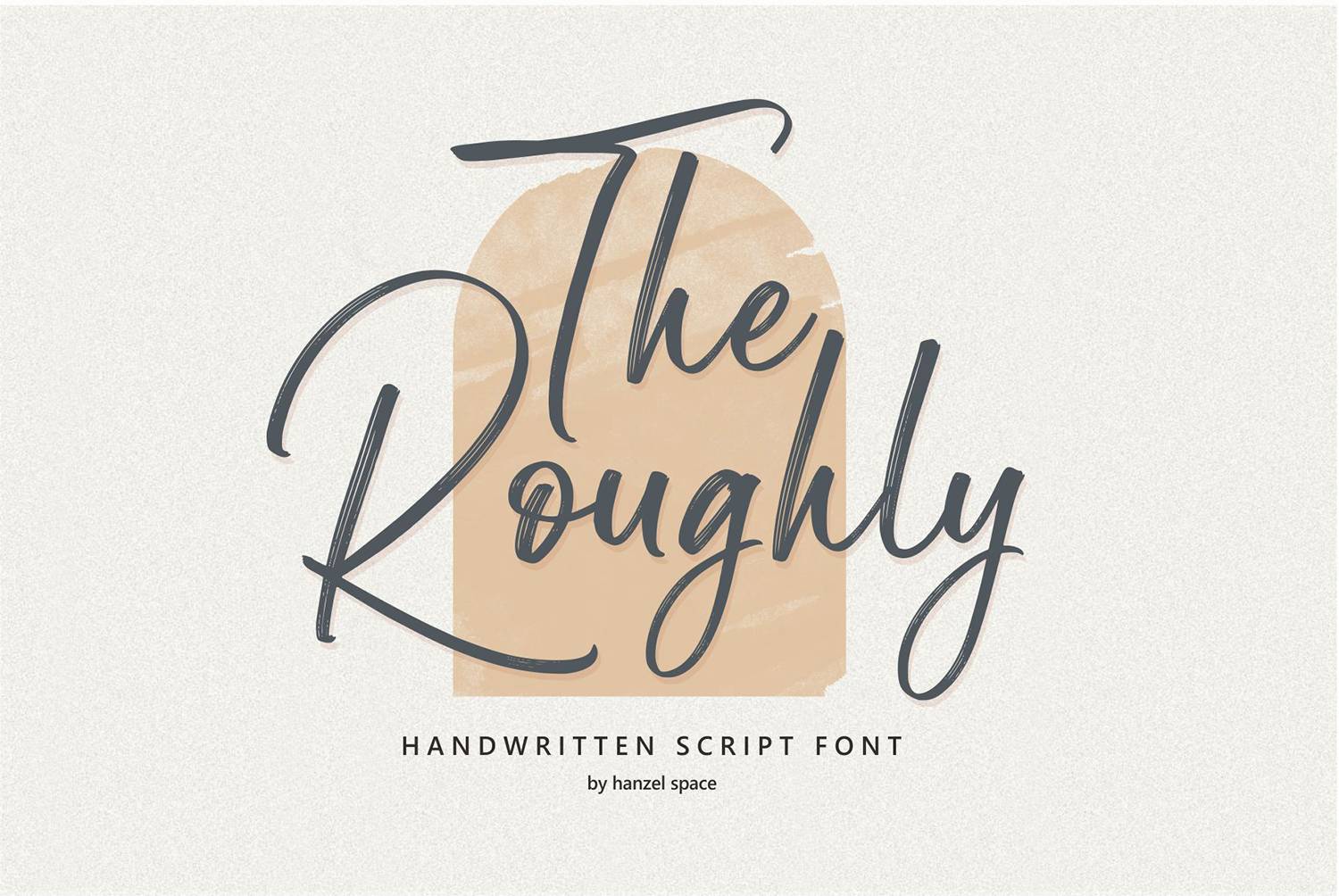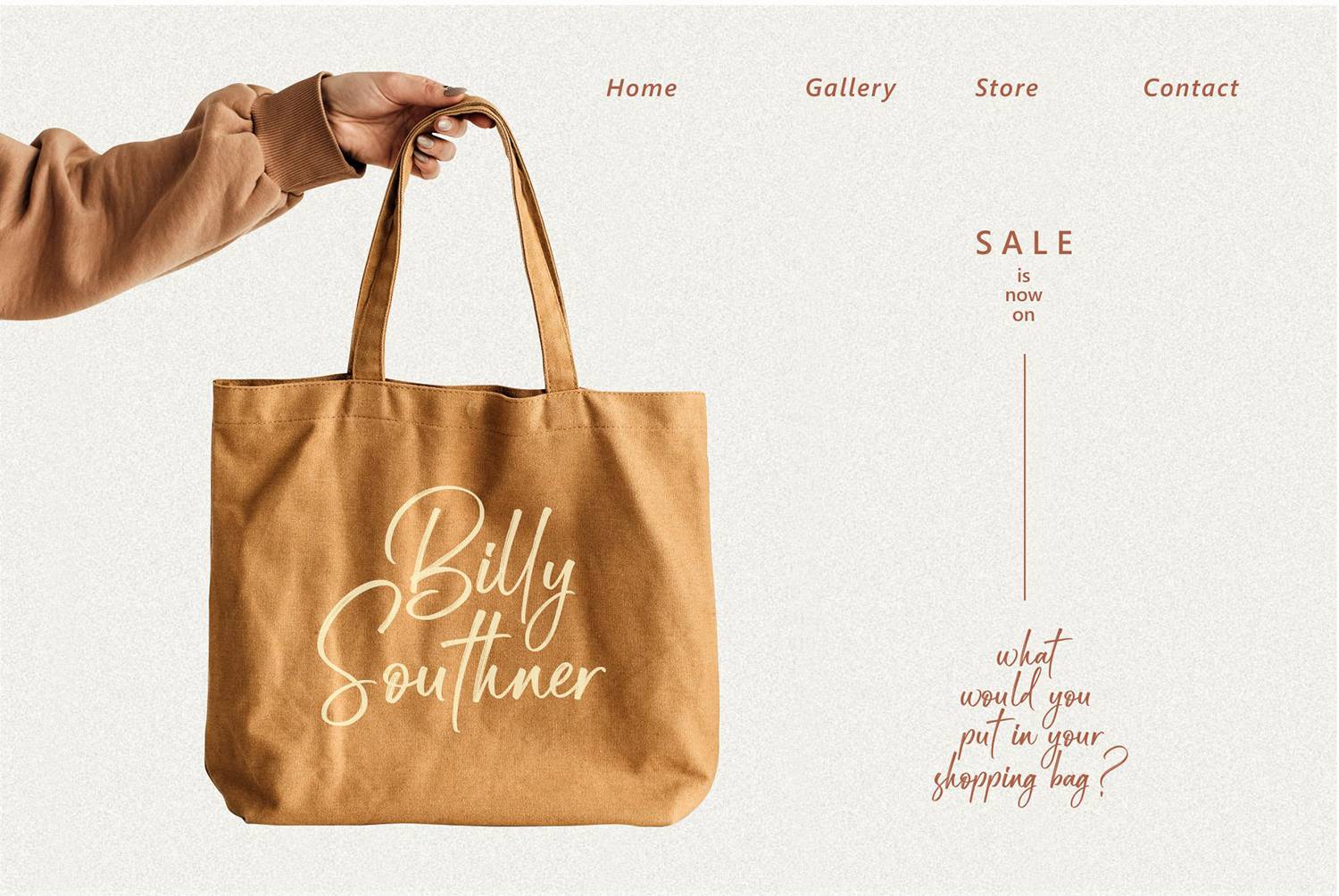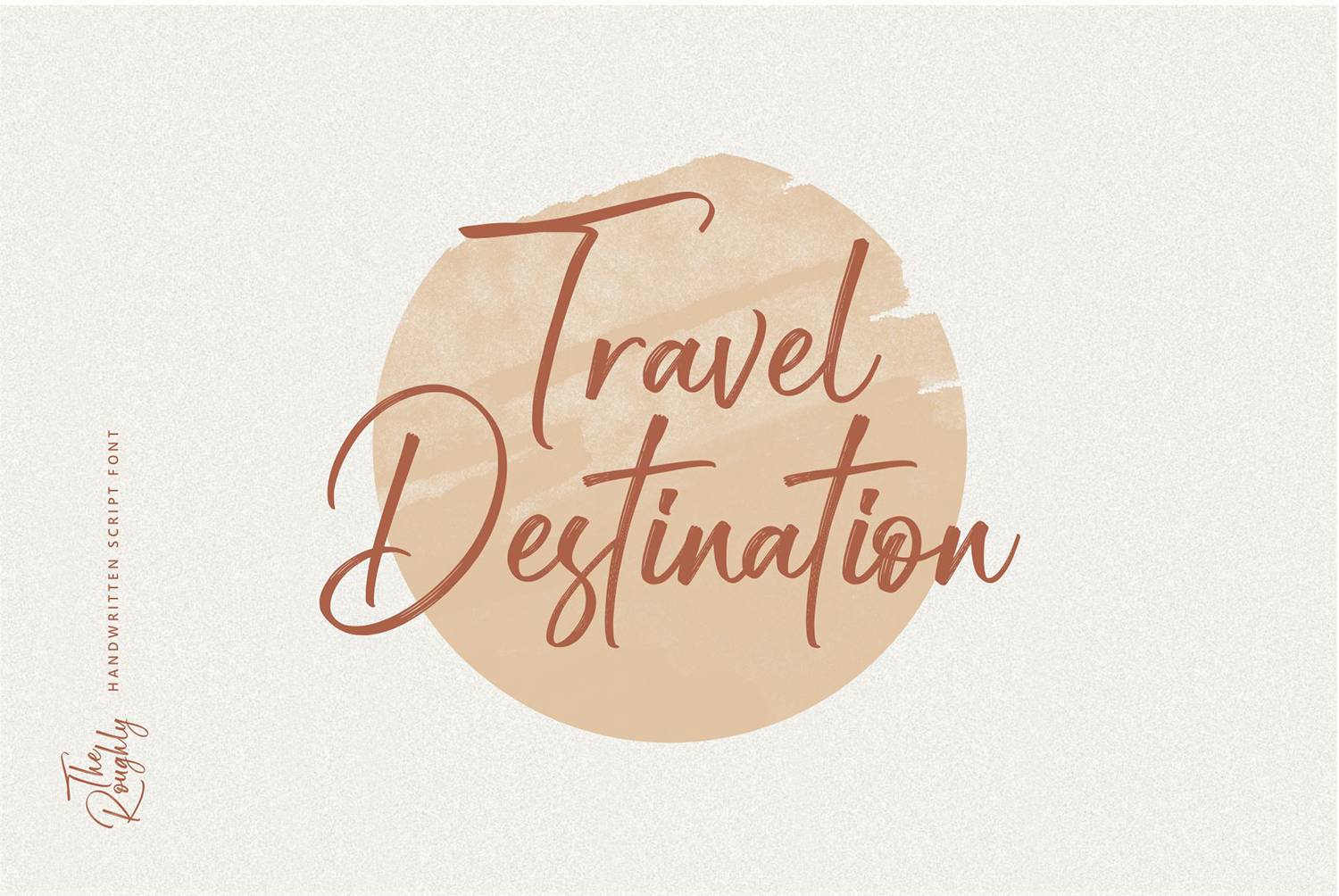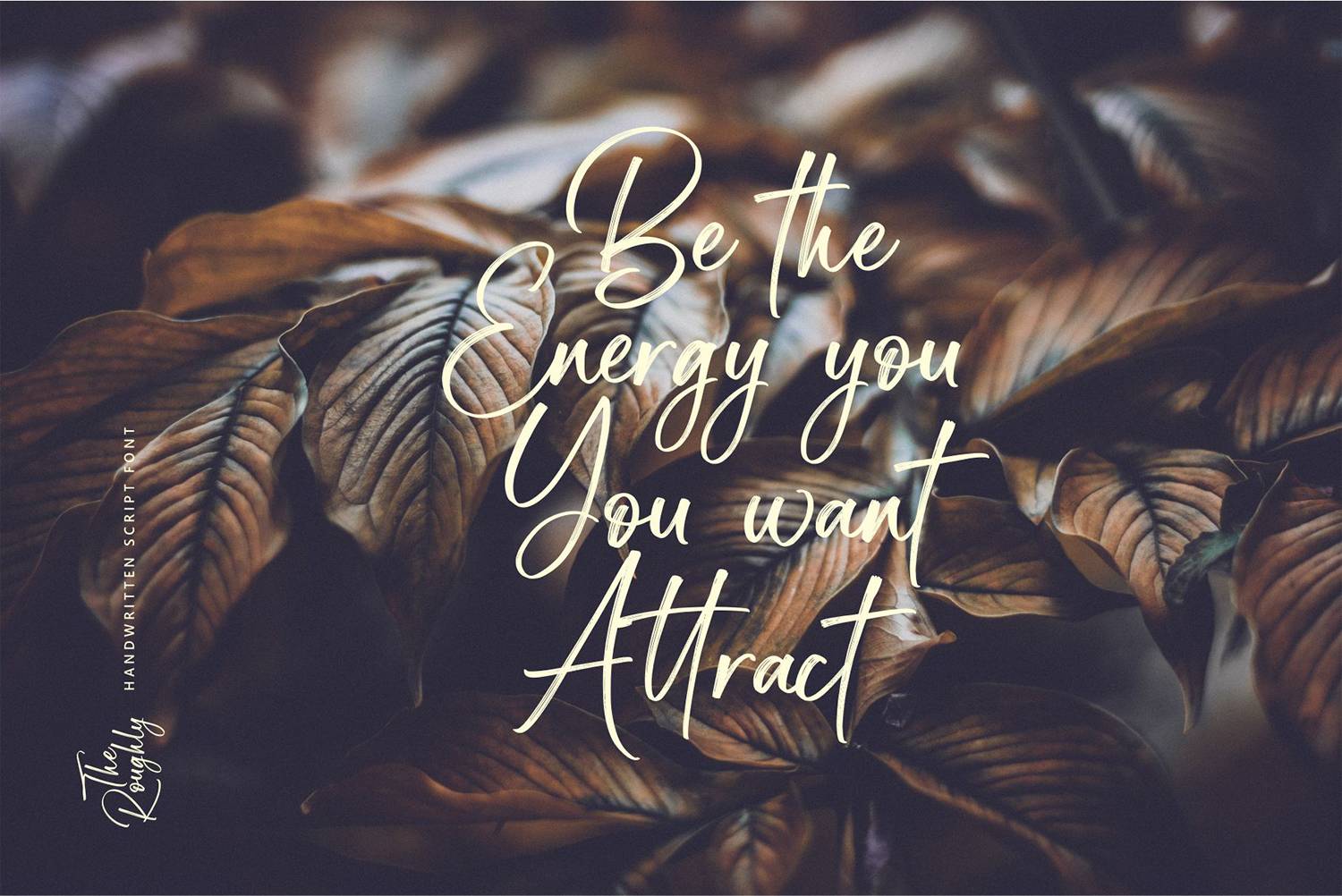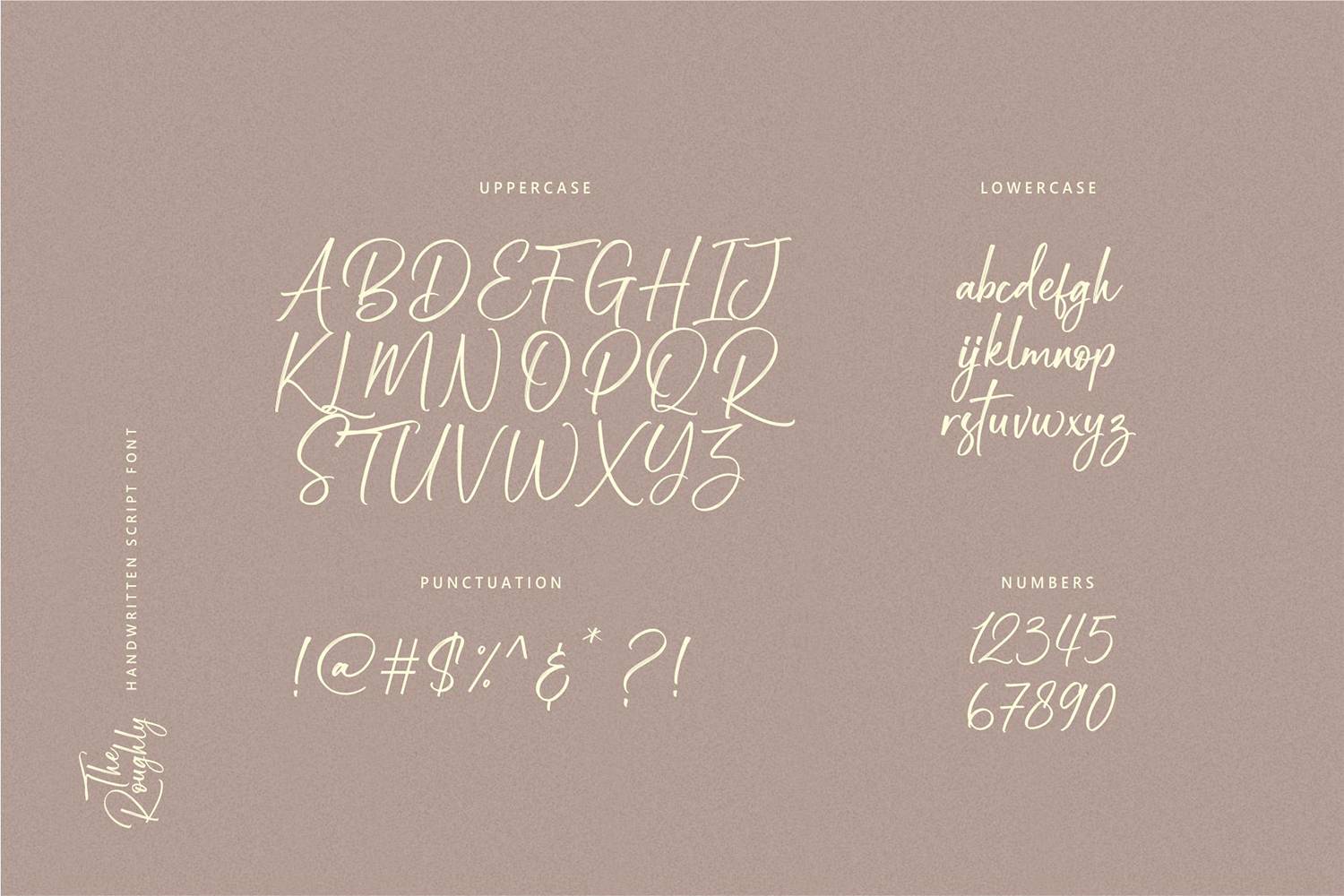
The Roughly Script Font is a delicate and flowing handwritten script with a graceful, elegant feel. Its light strokes and slight flourishes make it ideal for creating a personal, stylish touch in wedding invitations, branding, and feminine design projects. This font works best in headlines and decorative text where a refined, artistic look is desired.
The Roughly Script Font
About The Roughly Script Font
| Font family | The Roughly Script Font |
| Release date | 2021-11-03 |
| Designer | Hanief Farandi |